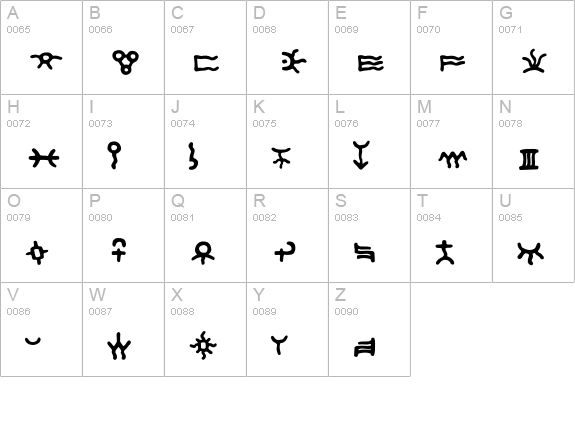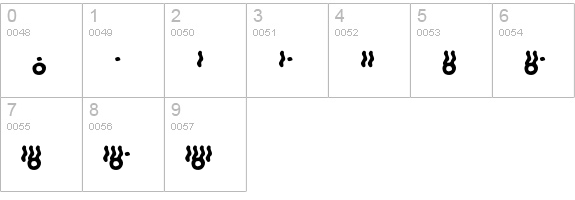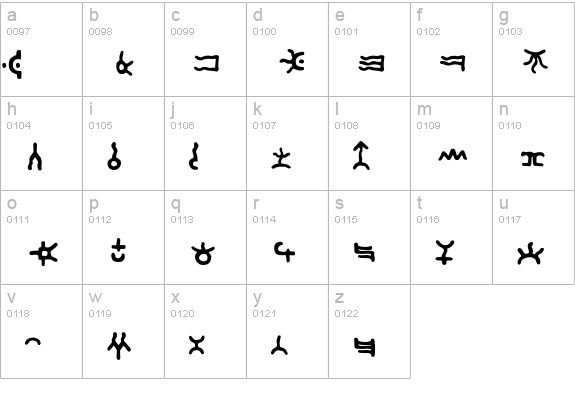
Dingura Font Details
Introducing Dingura font, a versatile and modern typeface that is perfect for a wide range of design projects. With its clean lines and stylish appearance, Dingura font adds a touch of sophistication to any text or graphic. Whether you're creating a logo, poster, or website, this font will make your content stand out. Best of all, Dingura font is available for free download at FontsMarket.com, making it accessible to anyone looking to enhance their designs with a touch of elegance. Don't miss out on this opportunity to elevate your projects with the beautiful Dingura font.